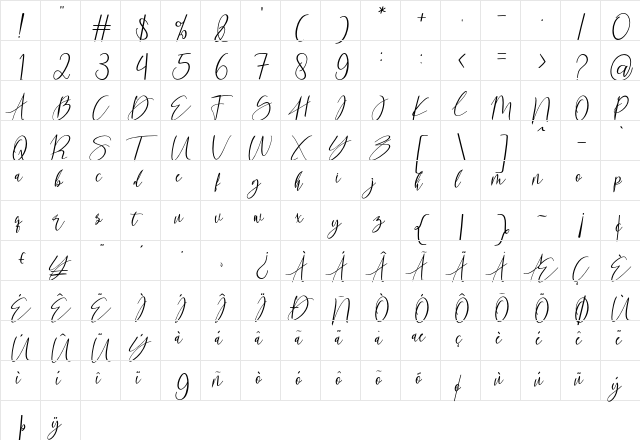
kallita Regular
| Foundry | Mightype |
| Designer | Munawir |
Design Context for kallita Typeface
kallita is a composed and adaptable typeface that performs quietly and consistently across a wide range of design contexts.